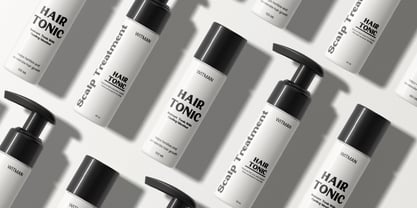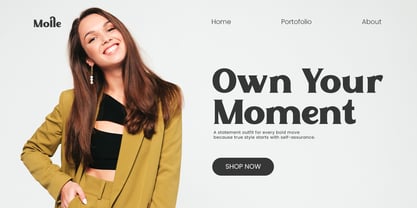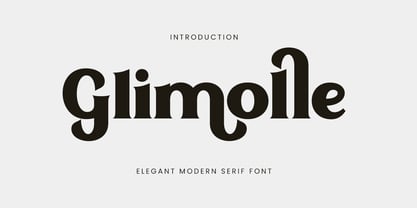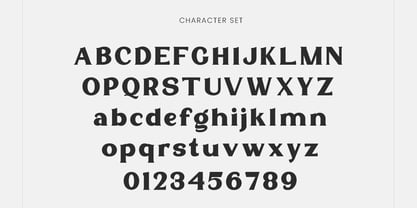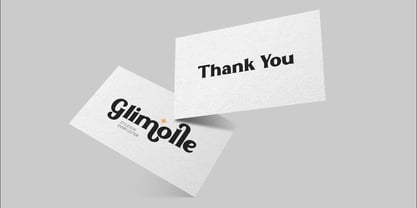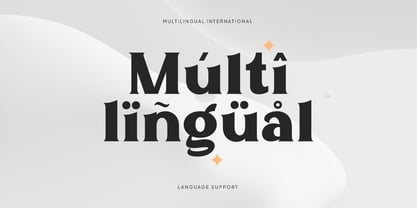
Glimolle
by Qiubare Studio
The Glimolle Font Family was designed by Michael Everson and published by Qiubare Studio. Glimolle contains 1 styles. More about this family
Glimolle is an elegant modern serif typeface designed to infuse sophistication and charm into contemporary design projects. With graceful curves, stylish letterforms, and balanced proportions, it ensures a refined visual presence while maintaining high readability. This typeface harmoniously blends classic serif influences with modern aesthetics, offering a distinctive personality that is perfect for various applications, including branding, editorial layouts, fashion campaigns, and premium packaging. Its smooth flow and subtle decorative elements provide a stylish rhythm to every word, making it an ideal choice for designers aiming to create elegant and expressive typography. Whether used for bold headlines or sophisticated branding, Glimolle brings a touch of timeless elegance and modern style to any project. **Perfect For:** * Fashion branding * Editorial and magazine layouts * Beauty & cosmetic packaging * Luxury product branding * Website headlines * Social media graphics * Logo and visual identity * Posters and advertising **Font Features:** * Uppercase & Lowercase * Numerals & Punctuation * Multilingual Support * Elegant Serif Style * Modern Editorial Look * Clean & Balanced Letterforms
Designers: Michael Everson
Foundry: Qiubare Studio